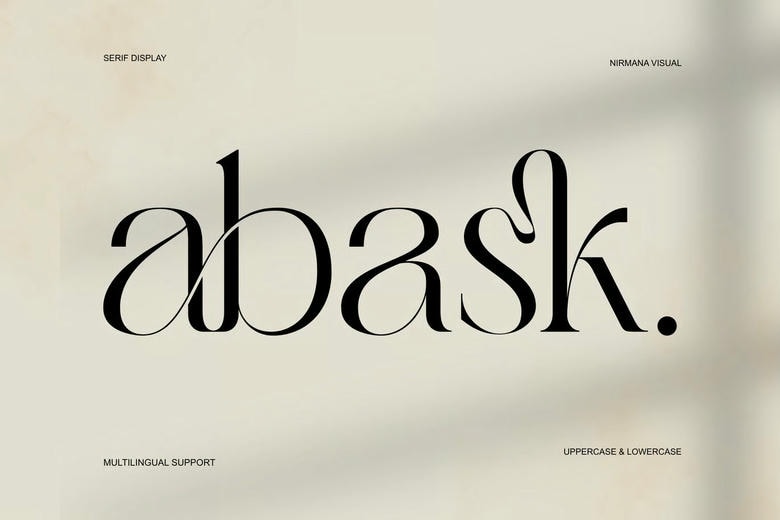
Abask Font
Abask is a serif font created by Sigit Dwipa Raharjo. You can download it for free and use it for personal projects. Abask brings a balanced, attractive look to many design needs, like logos, branding, social media, ads, and product designs.
Abask Serif Font